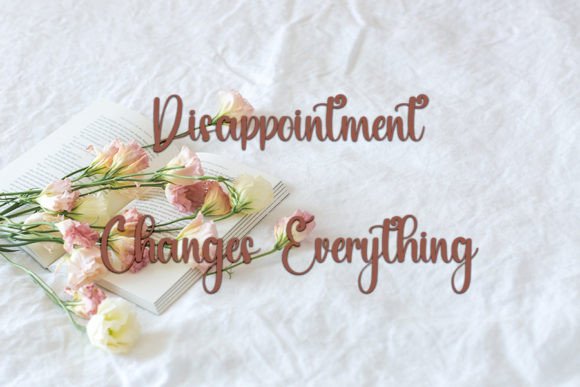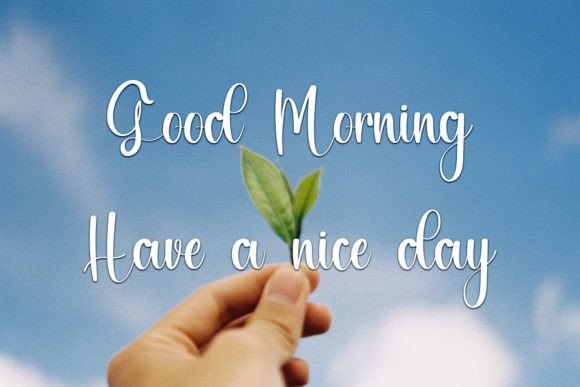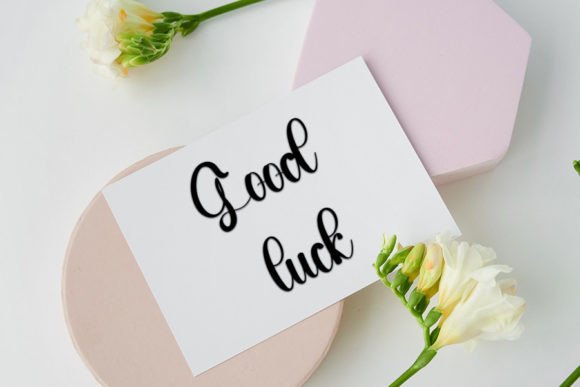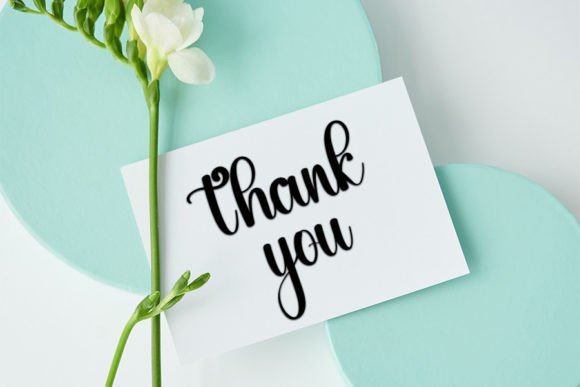
Pineapple Font
“Pineapple is a neat and beautiful handwritten font defined by an elegant touch, making it an ideal choice for a variety of creative projects. Its distinct and timeless style invites you to appreciate its unique charm and leverage it to craft spectacular designs.
The beauty of Pineapple lies in its well-crafted handwritten aesthetic. The font’s elegance is evident in its clean lines and distinctive style, offering versatility for a range of design applications. Whether you’re working on branding, stationery, social media posts, or other projects, Pineapple adds a touch of sophistication to your creations.
The distinct and timeless style of Pineapple ensures that it remains relevant and visually appealing over time. This makes it a valuable asset for projects where you want a font that stands out while maintaining a classic and enduring quality.
Consider incorporating Pineapple into your favorite projects to infuse them with a sense of elegance and individuality. Whether used for logos, branding materials, invitations, or digital designs, Pineapple’s distinct and timeless style allows it to shine in various creative contexts.
In summary, Pineapple is not just a font; it’s a design asset that combines neatness, beauty, and elegance. Its distinct and timeless style makes it a versatile choice for creating spectacular designs. Fall in love with Pineapple and let its unique charm enhance the visual appeal of your creative endeavors.”